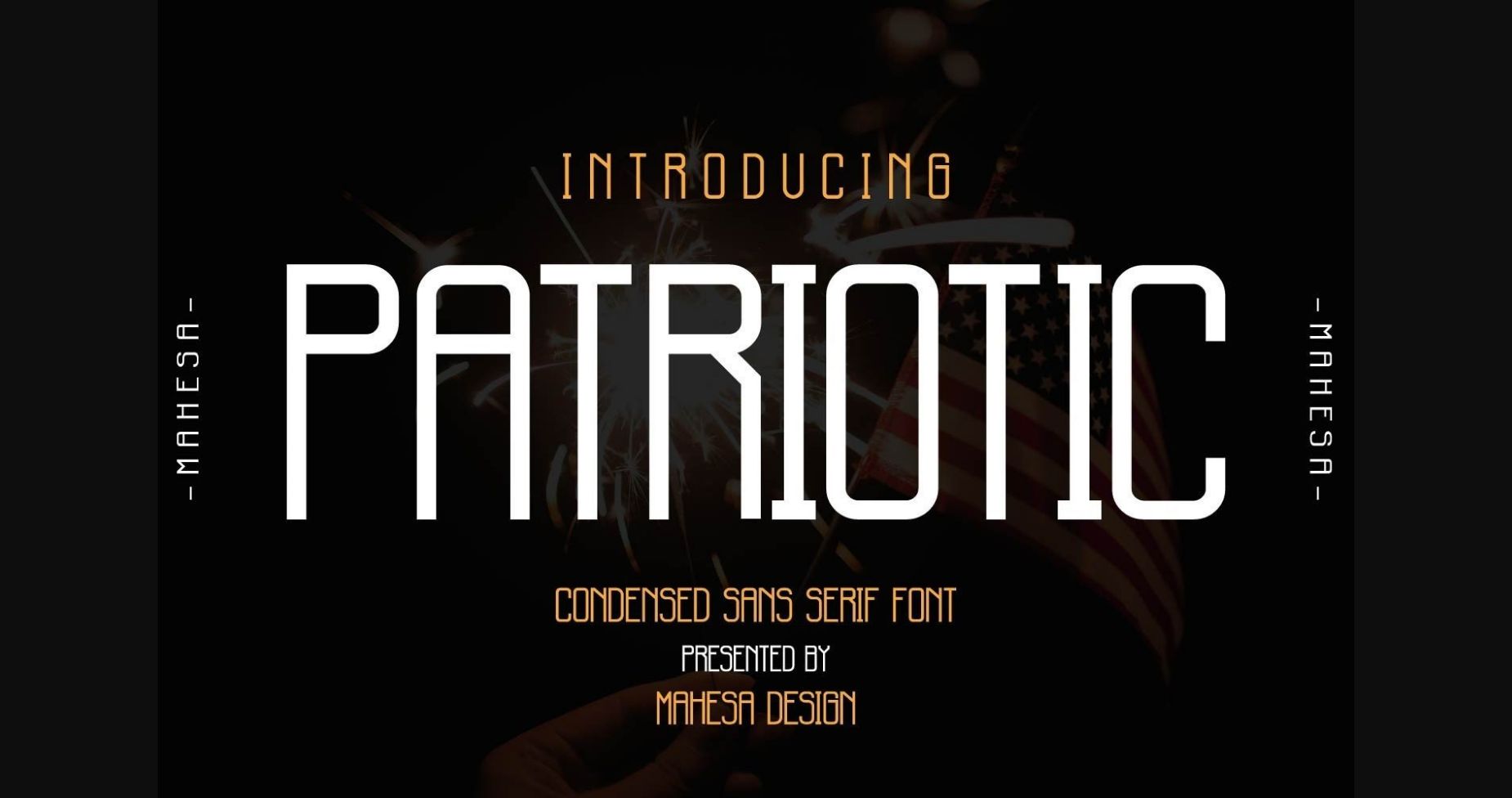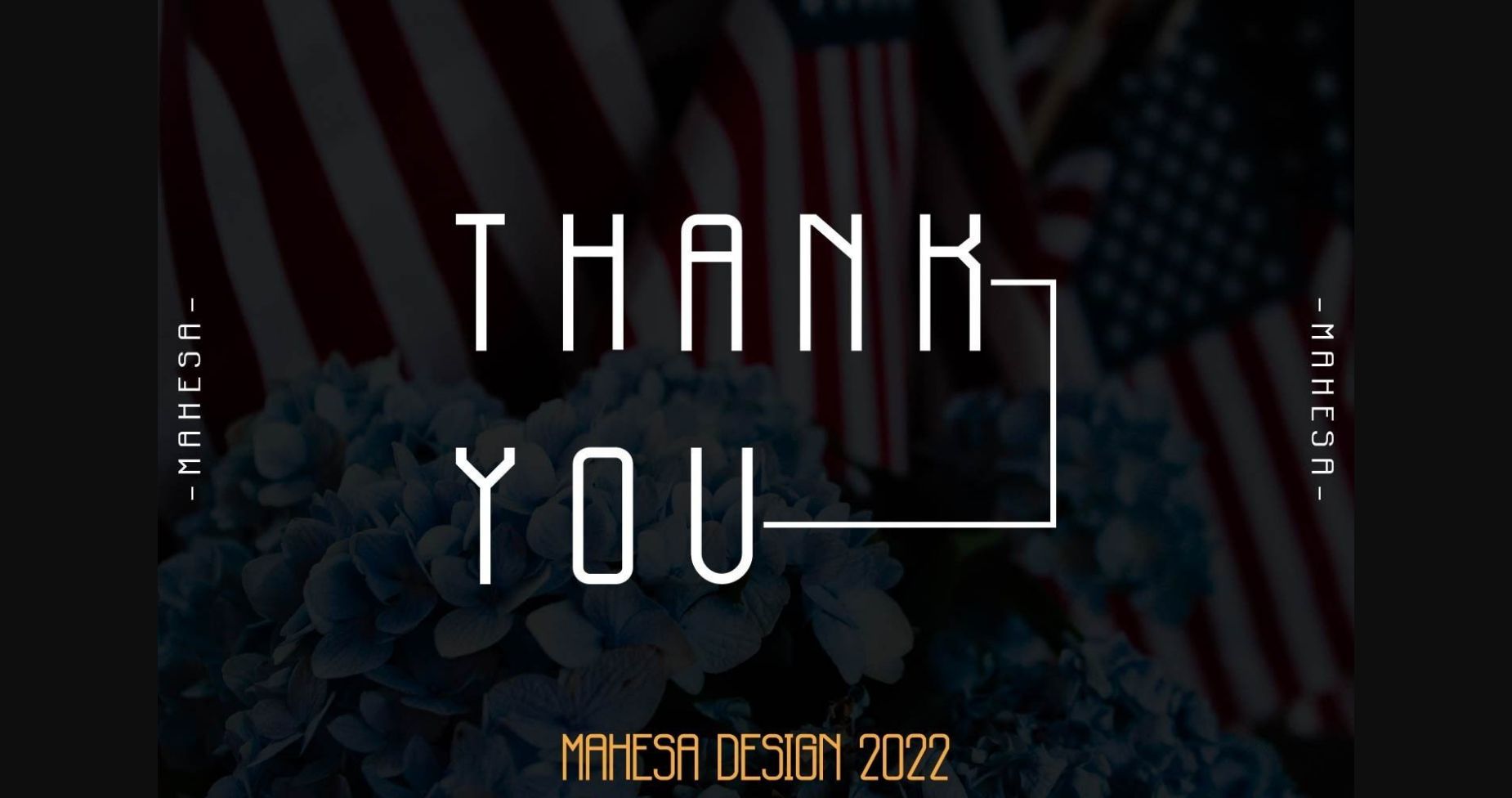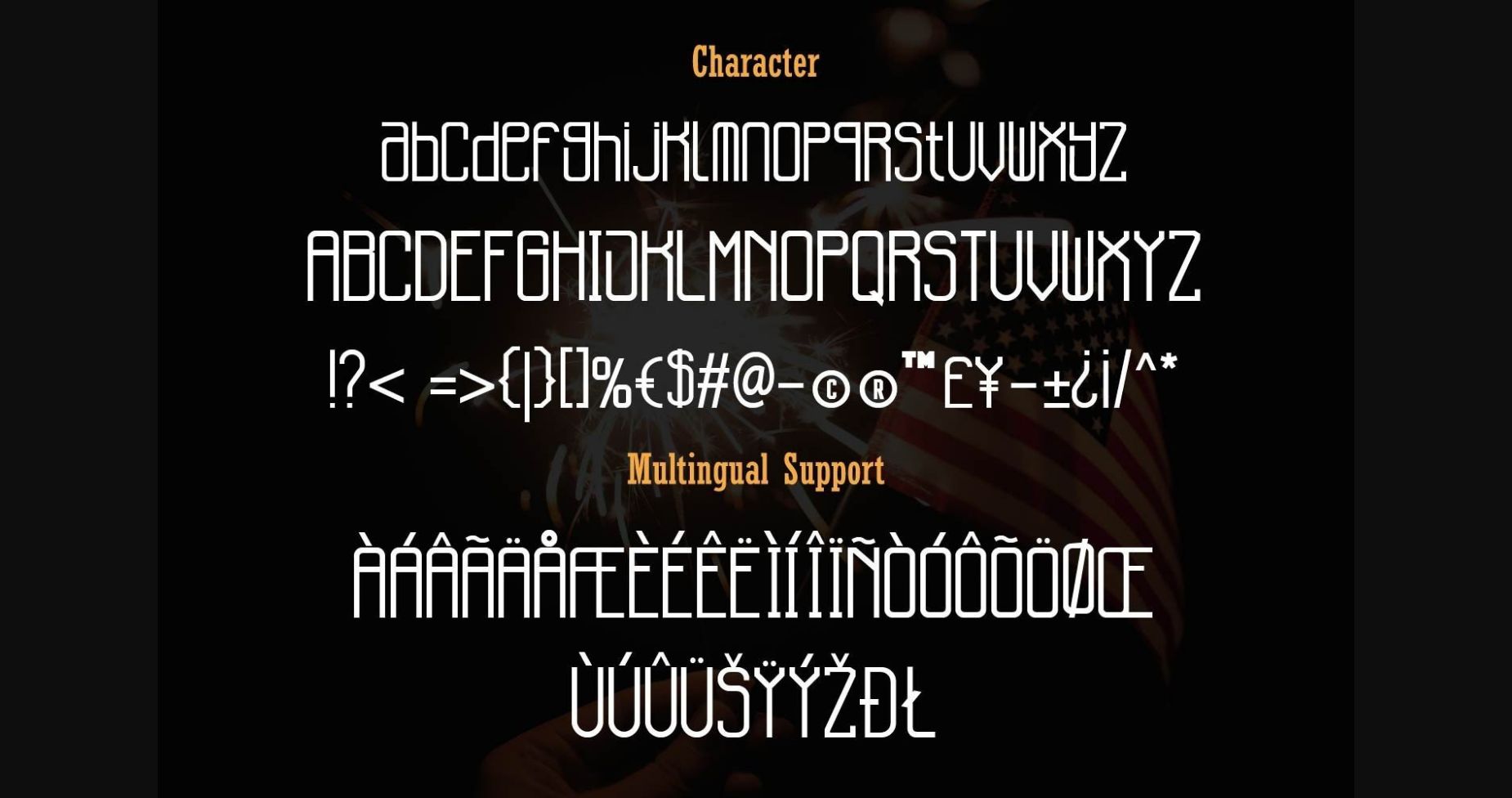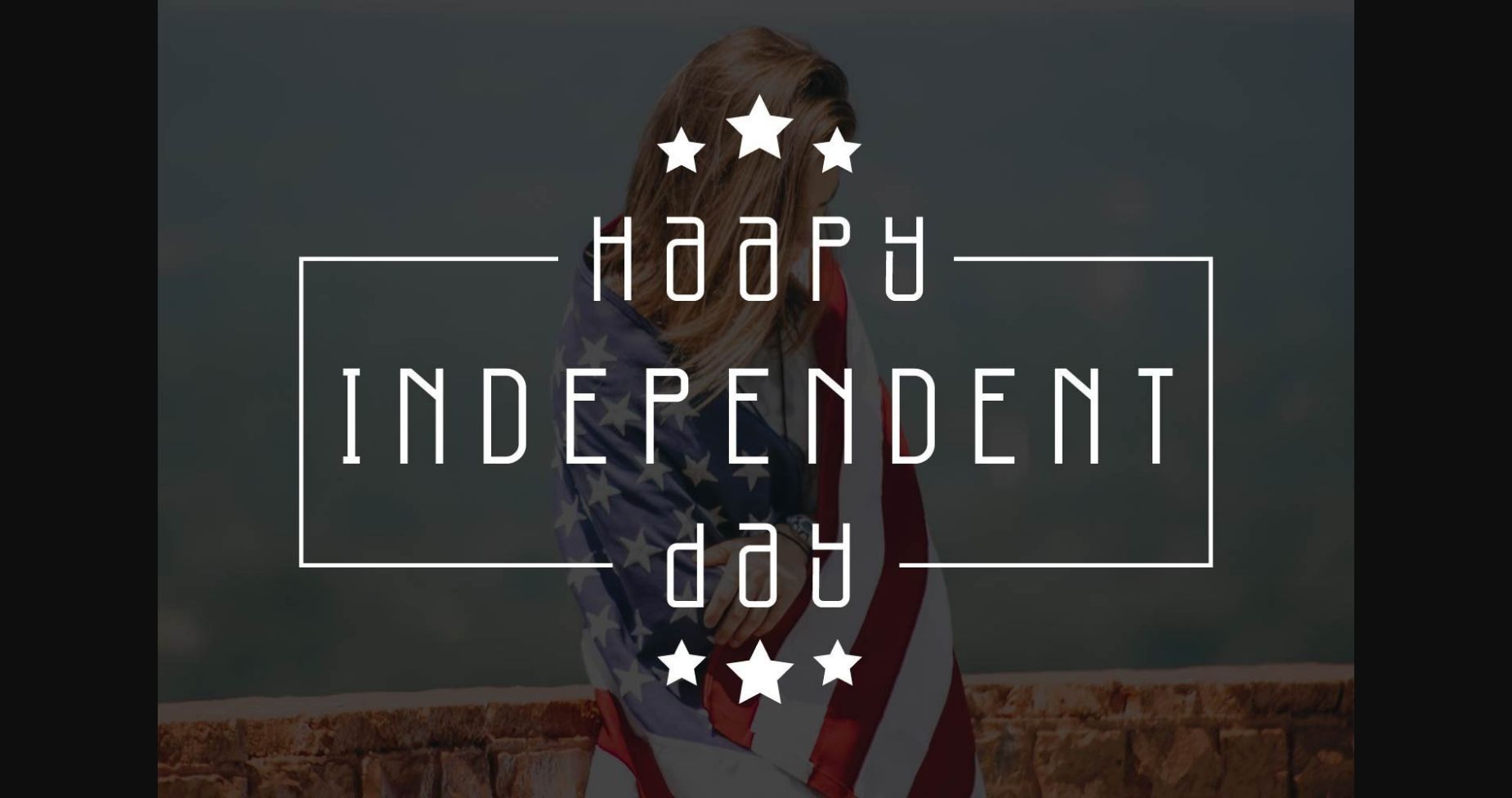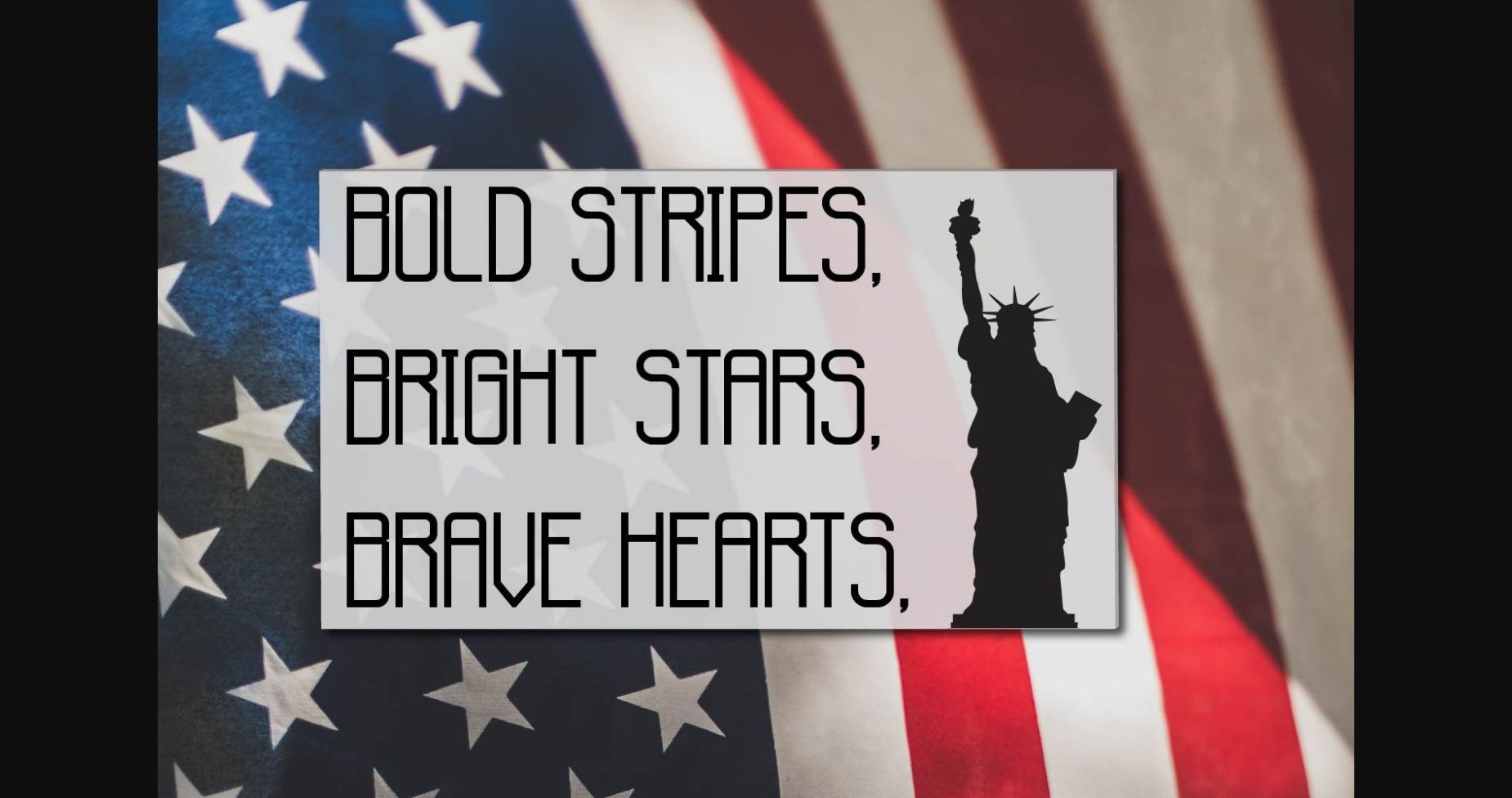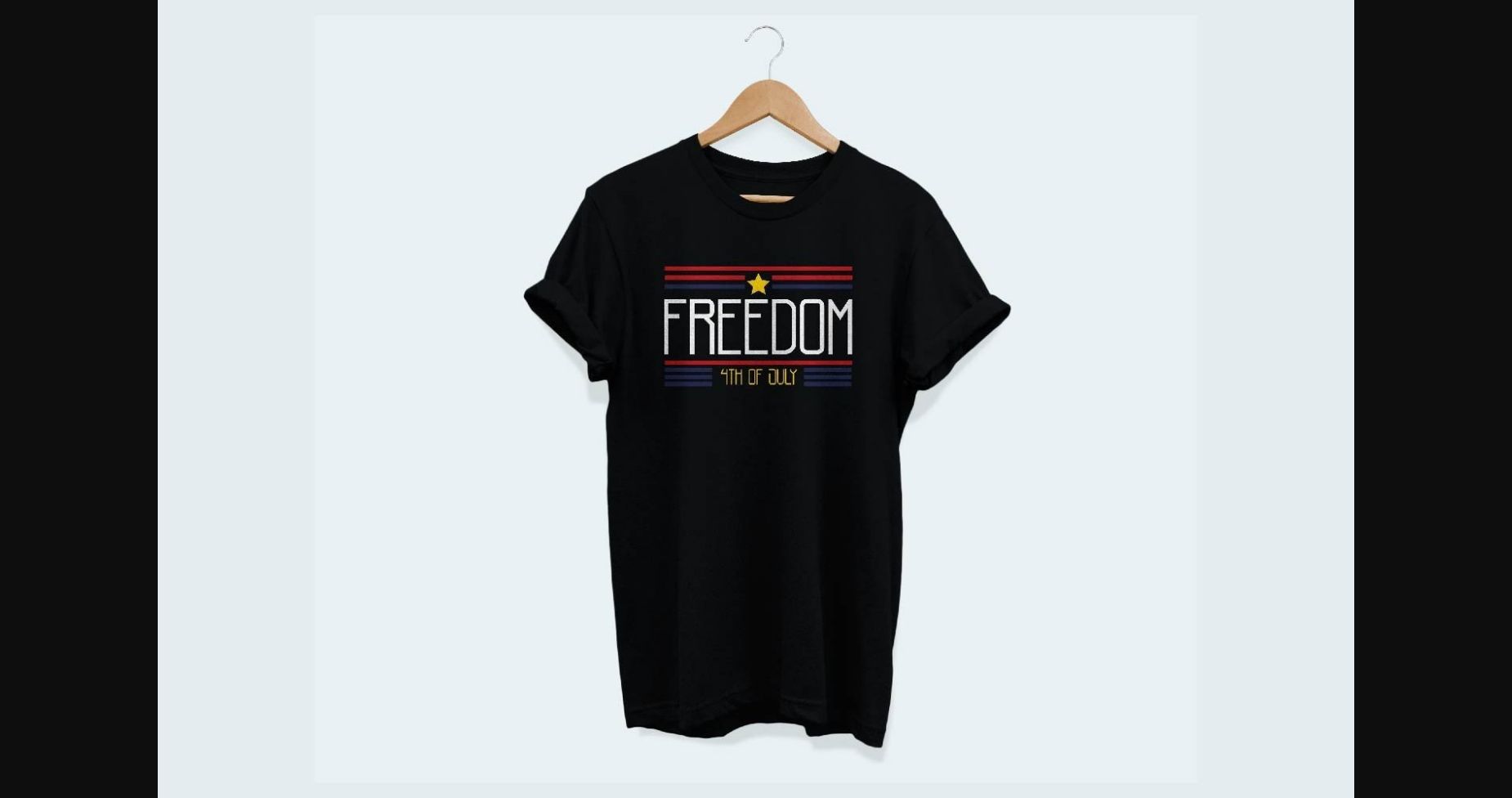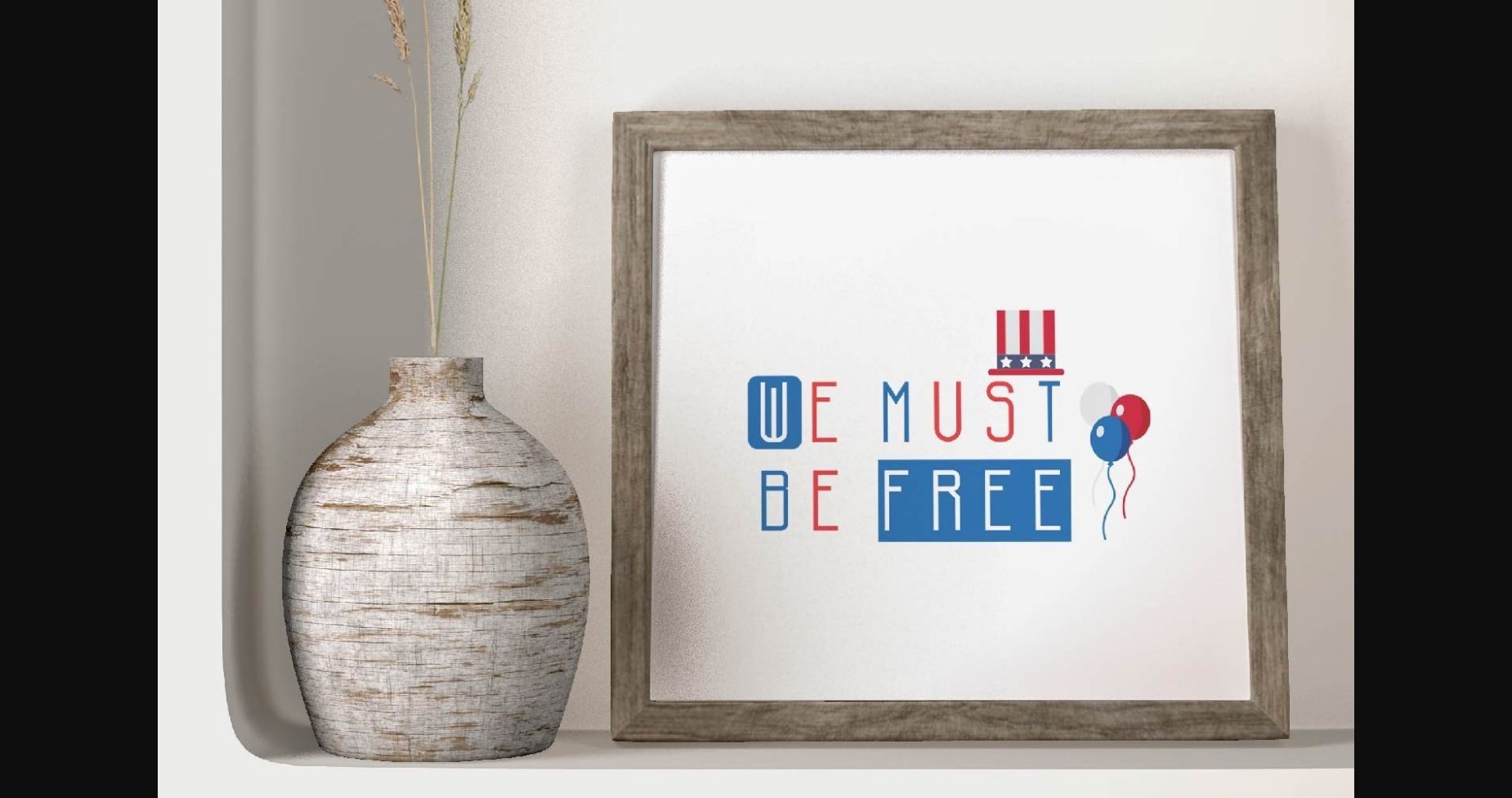
Patriotic Font
About Patriotic Font
Patriotic is a modern sans serif font suitable for logo design, t-shirt design, digital design, social media, movie titles, book titles, short text, and even long text. This font is also suitable to be used to prepare for Independence Day.